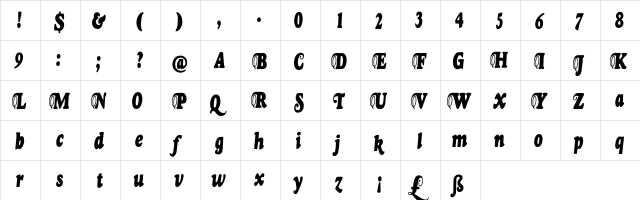
Goudy Fancy Condensed Heavy Italic Font Preview
| Foundry | Josh Korwin |
| Designer | Digitized / extended by Josh Korwin |
Design Context for Goudy Fancy Typeface
Goudy Fancy is a composed and adaptable typeface that performs quietly and consistently across a wide range of design contexts. The dynamic lean of this cut emphasises speed and emphasis in any layout. The condensed width makes it efficient for tight spaces without sacrificing legibility.
Pro Tip: Try Goudy Fancy for annotation and caption copy alongside an upright companion — the contrast in angle creates a dynamic but ordered typographic system.